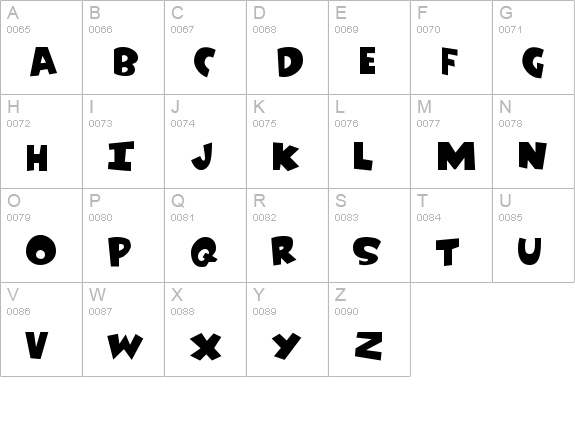
Soyuzmuiltfilm Nu Pogodi 2014 Regular is the standard, neutral variant in the Soyuzmuiltfilm typeface family \xE2\x80\x94 well suited to general body text, paragraphs, and standard typographic work.
Soyuzmultfilm Nu Pogodi 2014 Regular font is a delightful and whimsical typeface inspired by the classic Russian animated series. This charming font captures the playful essence of the beloved cartoon characters while maintaining a clean and modern design. With its smooth curves and elegant letterforms, Soyuzmultfilm Nu Pogodi 2014 Regular is perfect for adding a touch of nostalgia and fun to your projects.